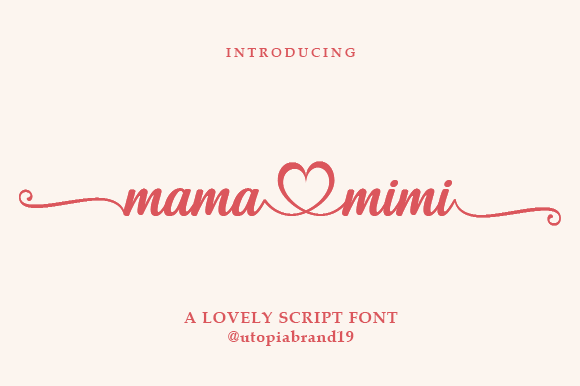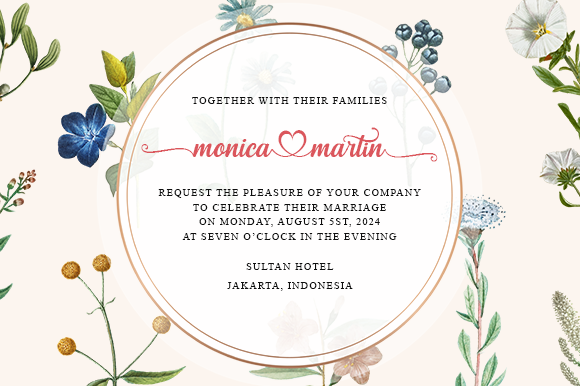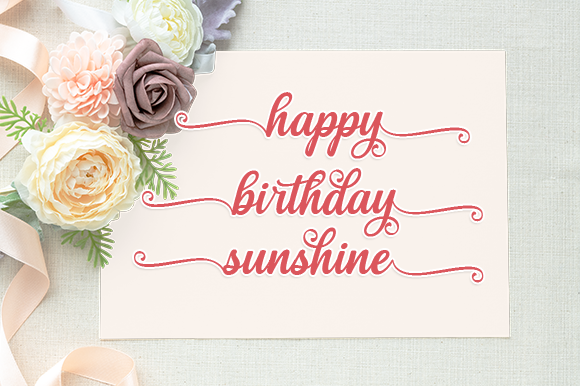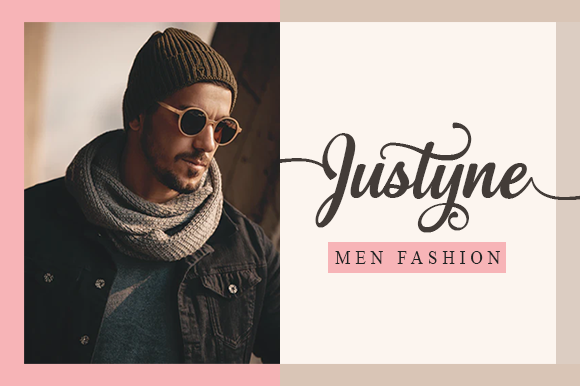
Mama Mimi Font: A Playful Script for Cute DIY & Cricut Projects
About the Mama Mimi Font
Presenting Mama Mimi Font, a unique and stylish typeface that will make your work stand out. Mama Mimi is a lovely script font featuring charming, playful characters that seem to dance along the baseline. Add this font to your most creative ideas, and notice how it makes them stand out!
Mama Mimi’s playful energy makes it ideal for projects requiring a touch of whimsy, such as children’s books, invitations, branding for boutiques or cafes, and short headlines. It works exceptionally well in packaging design where a lighthearted and memorable impression is desired. However, its delicate nature makes it unsuitable for body text or UI elements; the intricate details would be lost at smaller sizes, and readability would suffer in extended use.
Consider pairing Mama Mimi with a clean sans-serif like Open Sans for contrast, or a geometric sans-serif like Montserrat for a modern feel. For a more classic approach, a simple serif like Lora could provide a balanced pairing. Avoid pairing it with other highly decorative scripts as this can create visual clutter.
Its overall personality is best described as charming and friendly, conveying a sense of fun and approachability.
Mama Mimi Font Usage Examples
Mama Mimi Font Example